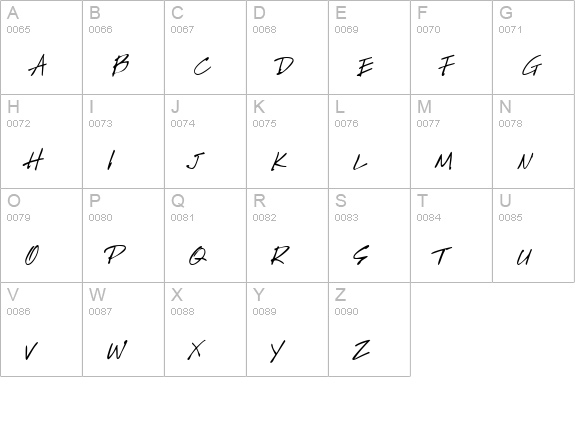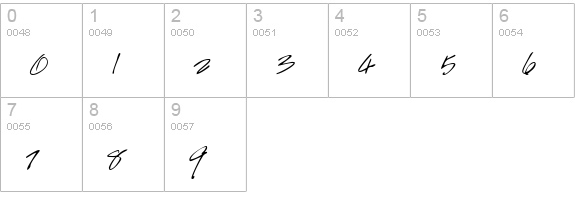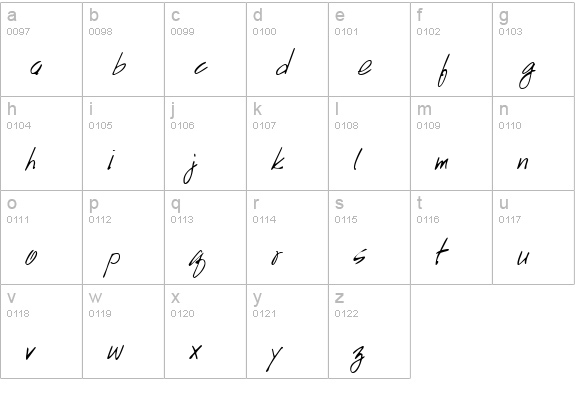
HandScript Regular is the standard, neutral variant in the HandScript typeface family \xE2\x80\x94 well suited to general body text, paragraphs, and standard typographic work.
HandScript Regular is a charming and versatile handwritten font that adds a personal touch to any design. With its natural flowing curves and slightly uneven strokes, this font captures the essence of authentic handwriting. It is perfect for projects that require a playful and casual vibe, such as invitations, greeting cards, logos, and social media posts. What sets HandScript Regular apart is not only its unique and stylish appearance but also the fact that it is available for free. That's right, this beautiful font can be downloaded at no cost on FontsMarket.com. Whether you are a professional designer or an aspiring artist, having access to high-quality fonts like HandScript Regular without breaking the bank is a game-changer. HandScript Regular is designed with great attention to detail, ensuring legibility and readability even at smaller sizes. The well-crafted characters effortlessly flow together, creating a seamless and natural look. Each letter is carefully hand-drawn, adding an organic and handcrafted feel to your designs. In addition to its aesthetic appeal, HandScript Regular is also incredibly easy to use. It is compatible with various design software and can be effortlessly integrated into your projects. With its extensive character set, including uppercase and lowercase letters, numerals, punctuation marks, and special symbols, this font offers versatility and flexibility. Whether you are a graphic designer working on a professional project or an individual looking to add a personal touch to your creations, HandScript Regular is the perfect choice. Download this amazing font for free at FontsMarket.com and let your creativity run wild.